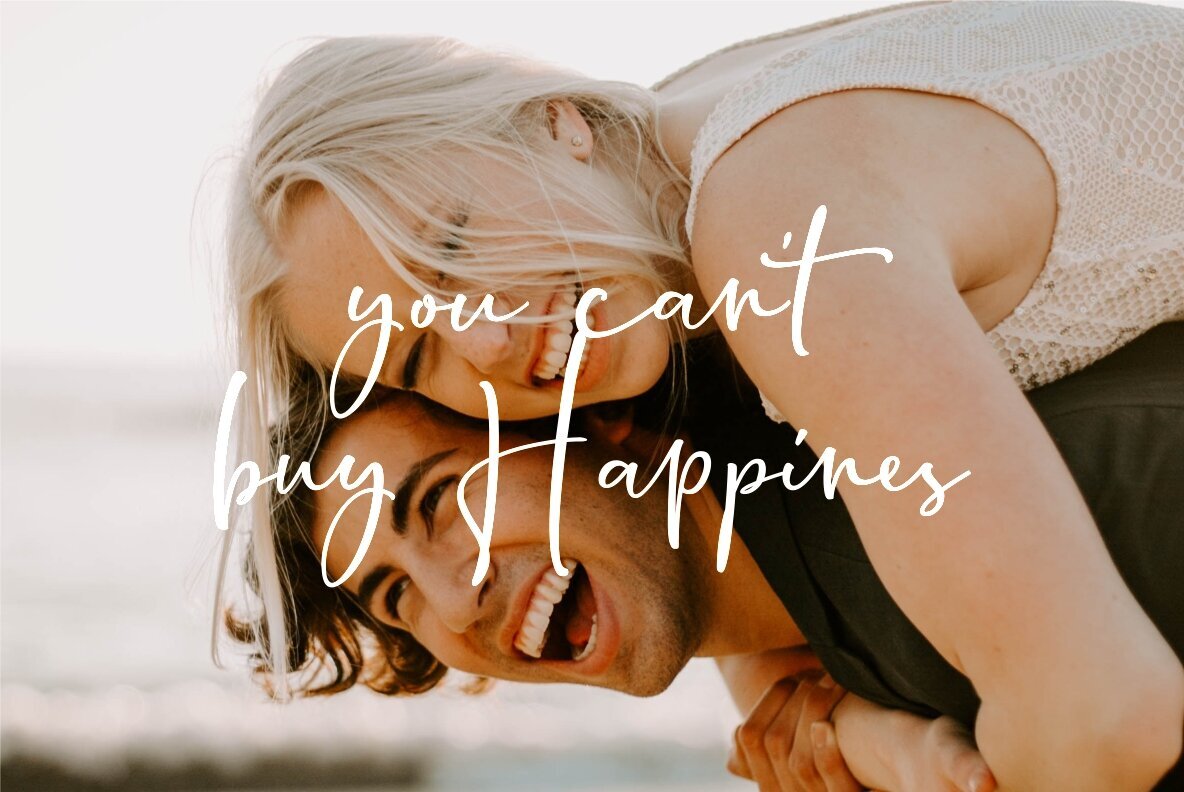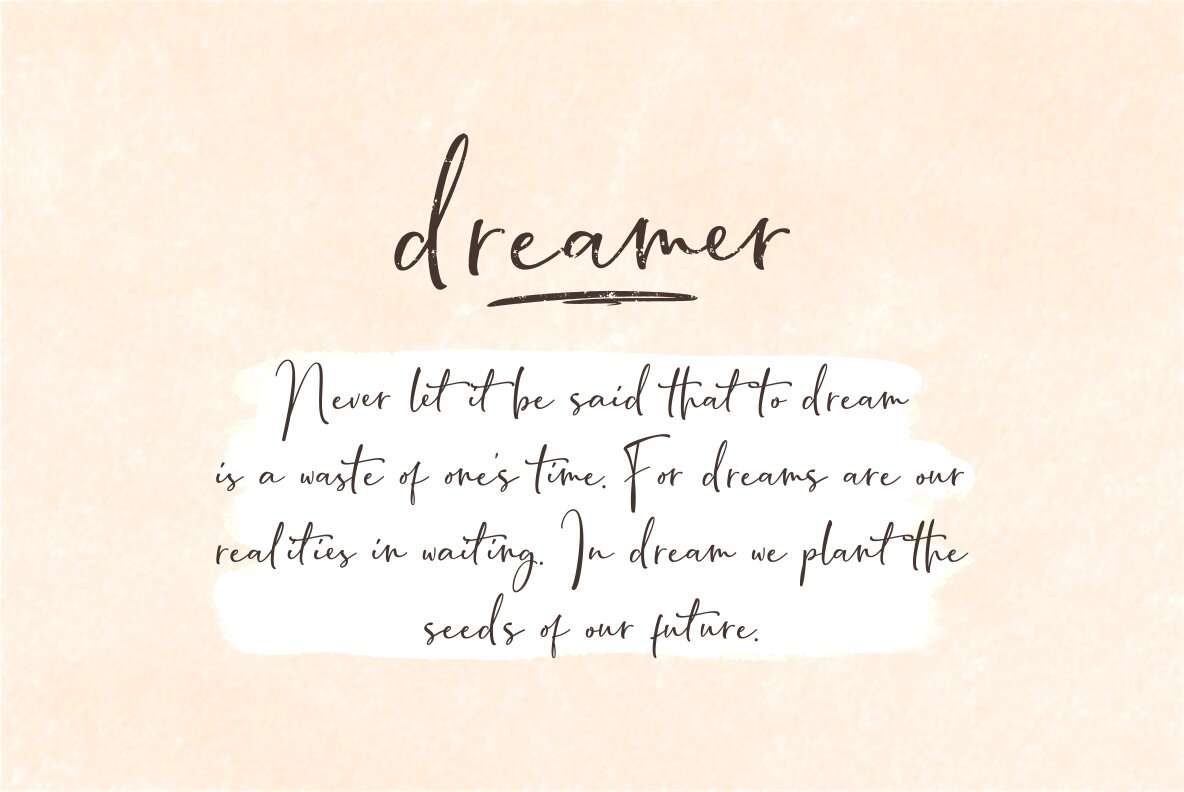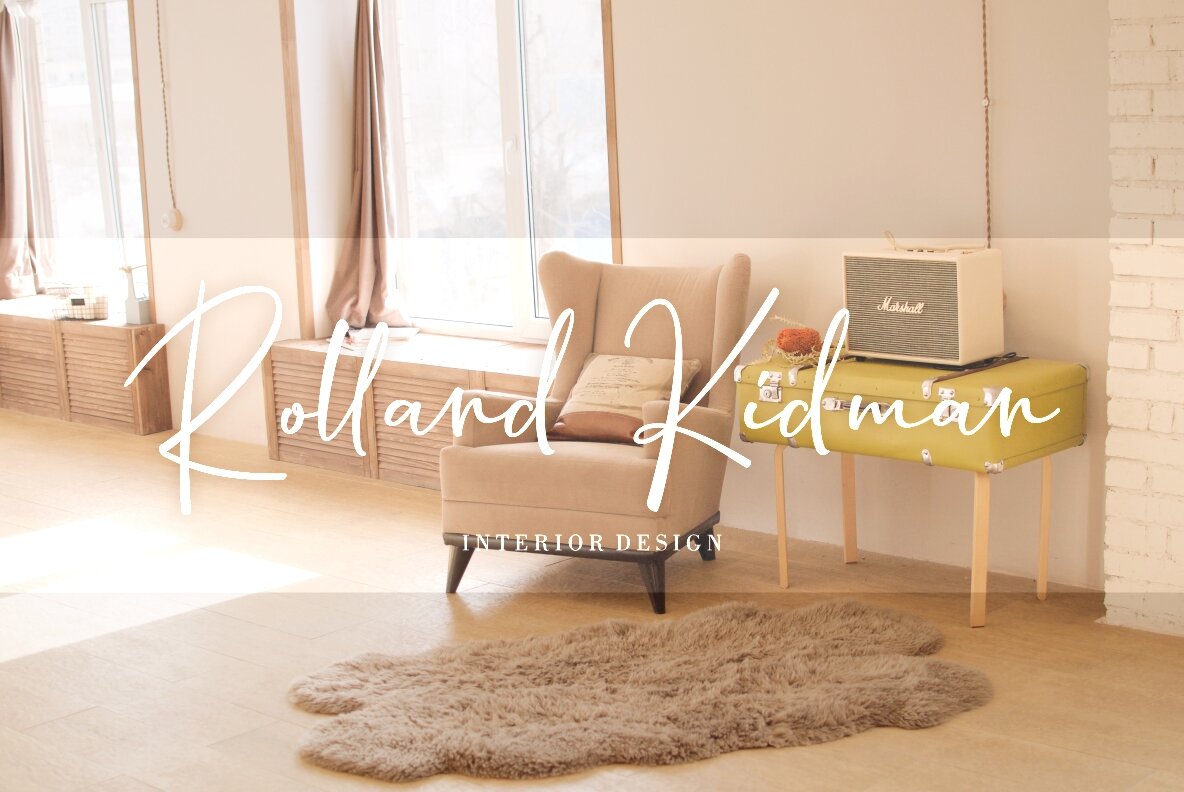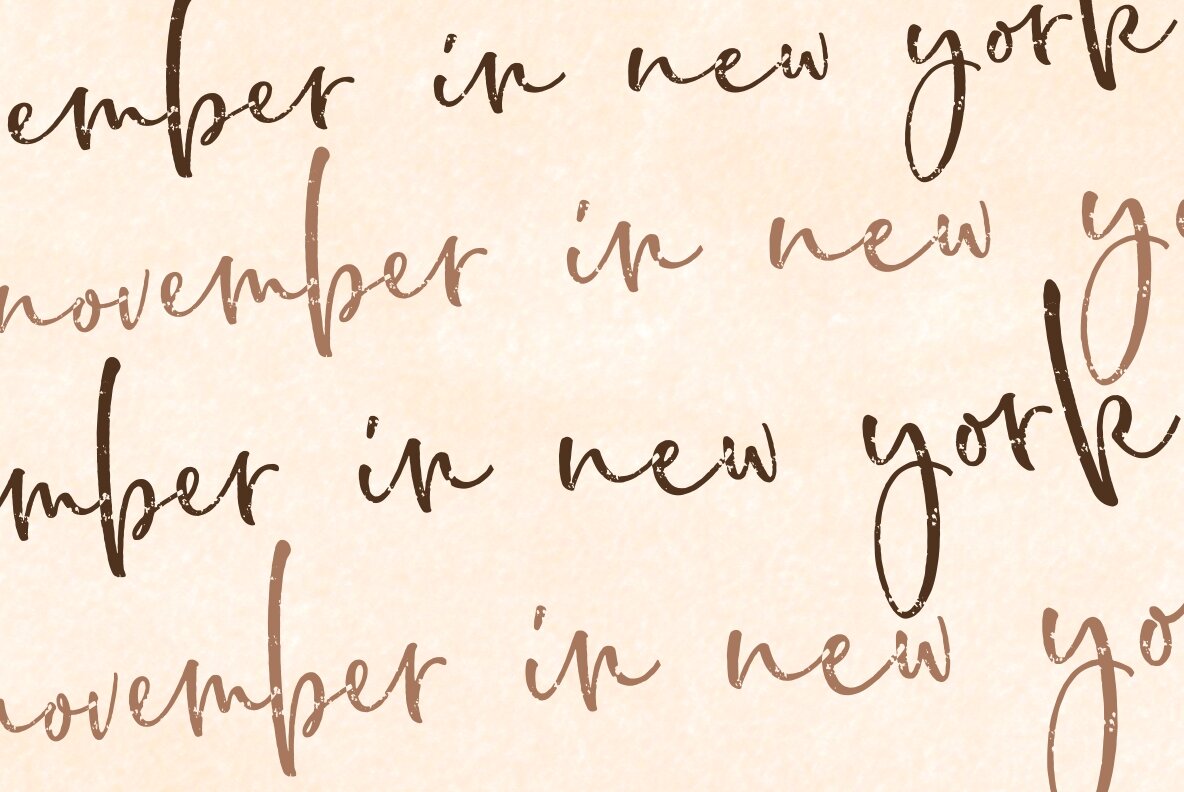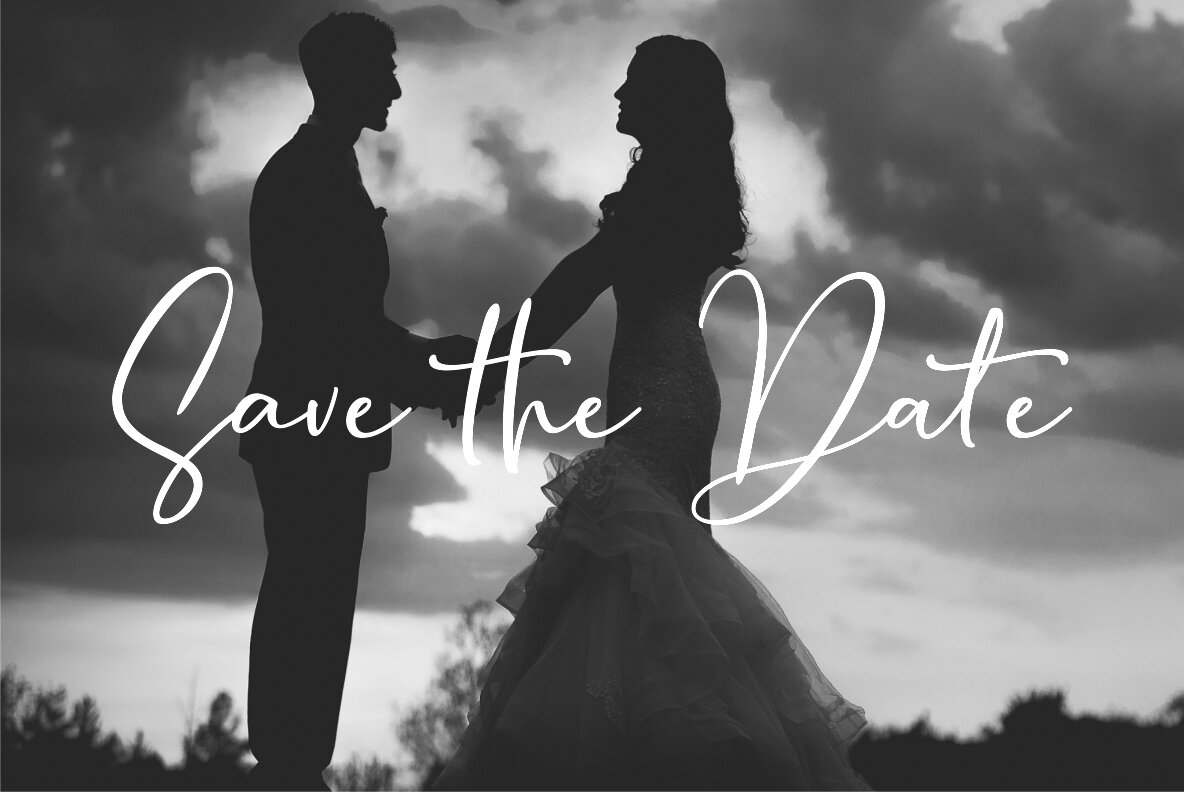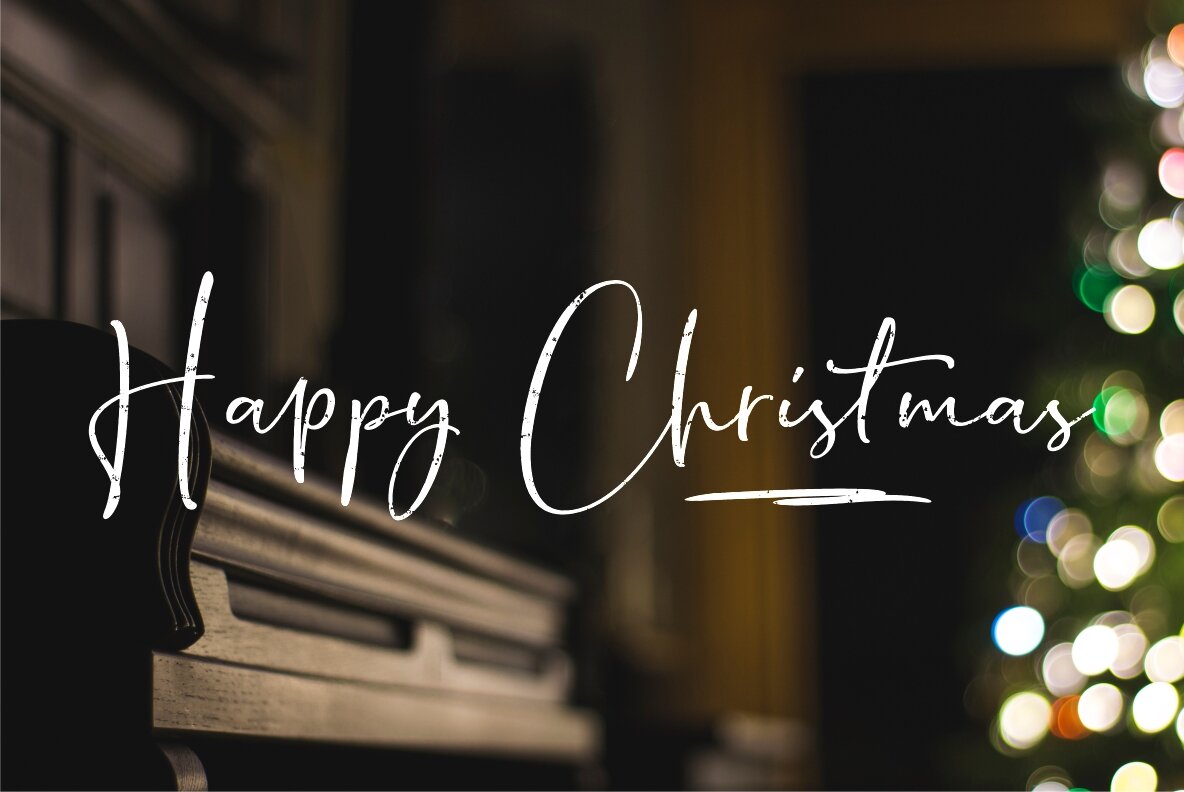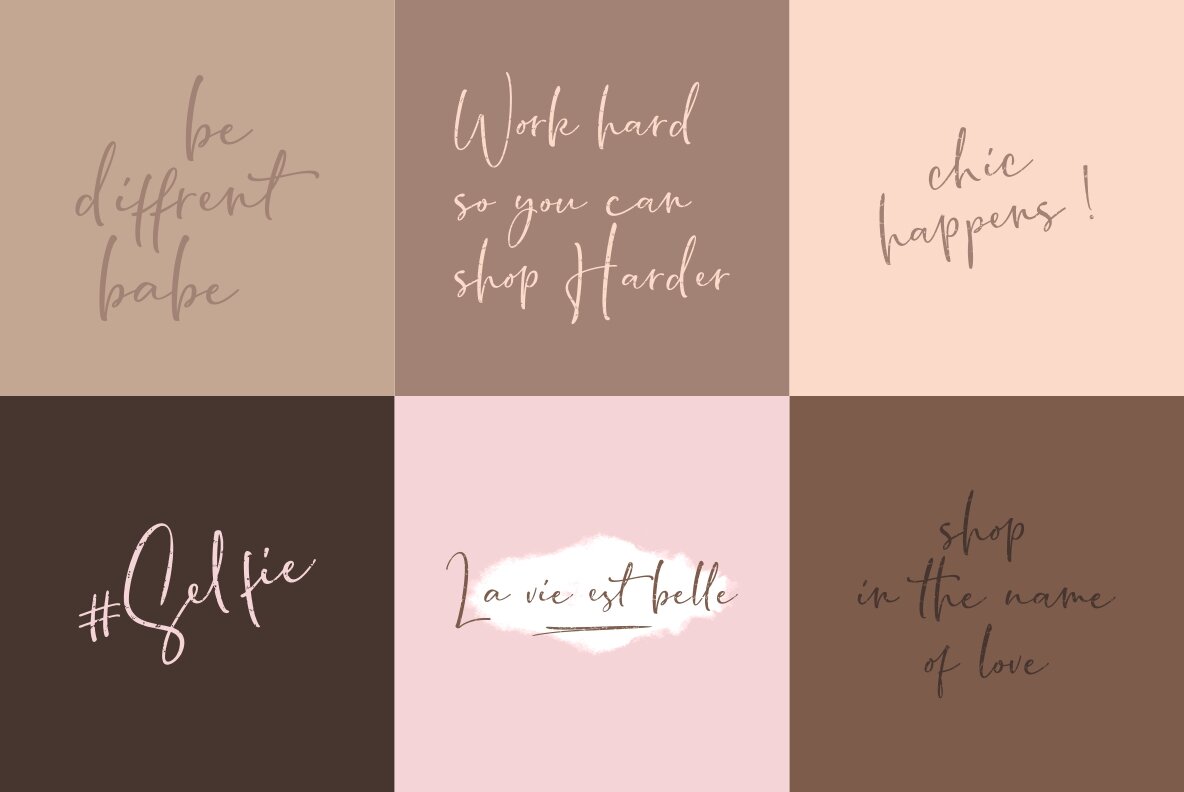
Bondi Sans Script Font
Bondi Sans Script introduces a whimsical touch to your design portfolio with its modern script style and lively bouncy letters. This font comes in two variations—rough and clean—and is packed with ligatures and swashes that infuse a dynamic, personal flair into any project. Ideal for creative professionals seeking a blend of style and function, the font is particularly effective in branding, logos, T-shirt designs, and greeting cards.Bondi Sans Script: Playful Brush Typography